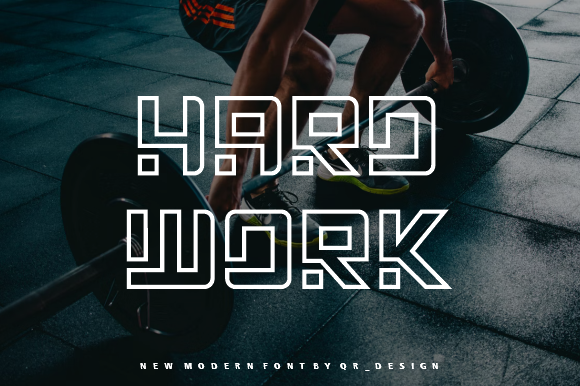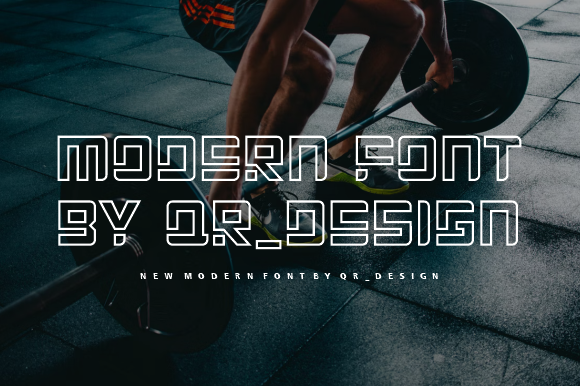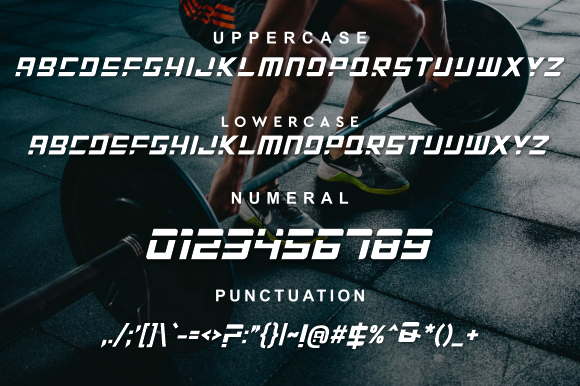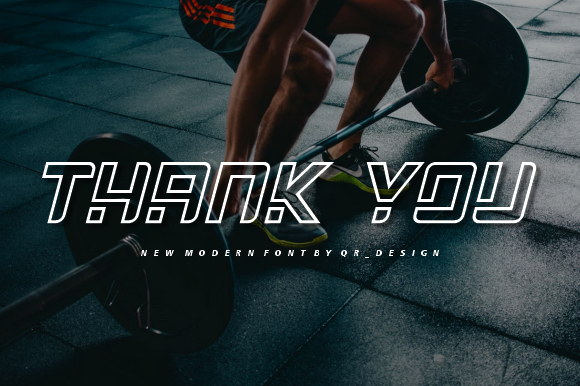
Introduction to Quickly Work Line Font
Have you ever been working on a creative project and realized that the perfect font is just out of reach? The font that would elevate your design from good to great, but you can’t quite put your finger on it. This is exactly the moment when discovering the right design resource can be a game-changer. For designers looking to add a bold and authentic touch to their work, the Quickly Work Line Font is an excellent choice.
This modern display font is not only visually striking but also incredibly versatile, making it an ideal addition to any branding project. Whether you’re creating a logo, designing a t-shirt, or working on a gaming or esports project, the Quickly Work Line Font is sure to make a lasting impression. With its high-quality design and transparent background, this font is a valuable resource for any creative project.
Key Features of Quickly Work Line Font
- High-quality design resource ideal for creative projects, including logos, icons, and graphics.
- Features a transparent background, making it easy to integrate into any design without visual clutter.
- Designed to be easily scalable, making it suitable for use in a wide range of creative projects, from small icons to large graphics.
- Unique characteristics include clean lines, simple shapes, and a modern aesthetic, making it a great addition to any design resource collection.
Honest Review: Quickly Work Line Font
As a designer, I’m always on the lookout for high-quality design resources to elevate my creative projects. Recently, I had the chance to try out the Quickly Work Line Font, and I’m excited to share my honest review with you.
What works well: ✨ The font is incredibly versatile and can be used for a wide range of design projects, from modern websites to traditional print materials. I particularly love the clean and minimalist aesthetic, which makes it perfect for creating a professional look. The font also comes in a variety of weights and styles, giving me plenty of options to experiment with.
Overall, I’m really impressed with the Quickly Work Line Font. It’s a fantastic addition to any designer’s toolkit, and I’m excited to see how it can help elevate my future creative projects.
- High-quality design resource perfect for modern creative projects
- Available in various weights and styles
- May not be suitable for projects with bold or italic text
The Quickly Work Line Font is a high-quality, free download that can be used for various creative projects. It features a transparent background, making it versatile for different design needs.
For the best results, use the Quickly Work Line Font in bold or italic styles to add emphasis to your text. You can also pair it with other fonts to create a unique design.
The Quickly Work Line Font is suitable for a wide range of creative projects, including:
- Business presentations
Alternatives to Quickly Work Line Font
Montserrat Font is a sans-serif typeface that is highly legible and versatile, making it perfect for creative projects that require a modern and sleek design. It’s available for free download and has a transparent background, making it ideal for designs with a lot of text. When to use: For digital designs, websites, and social media graphics.
How it compares to Quickly Work Line Font: Montserrat Font has a more geometric and modern feel, while Quickly Work Line Font has a more playful and handwritten feel.
Open Sans Font is a clean and modern sans-serif typeface that is highly legible and versatile. It’s available for free download and has a transparent background, making it perfect for designs with a lot of text. When to use: For digital designs, websites, and print materials.